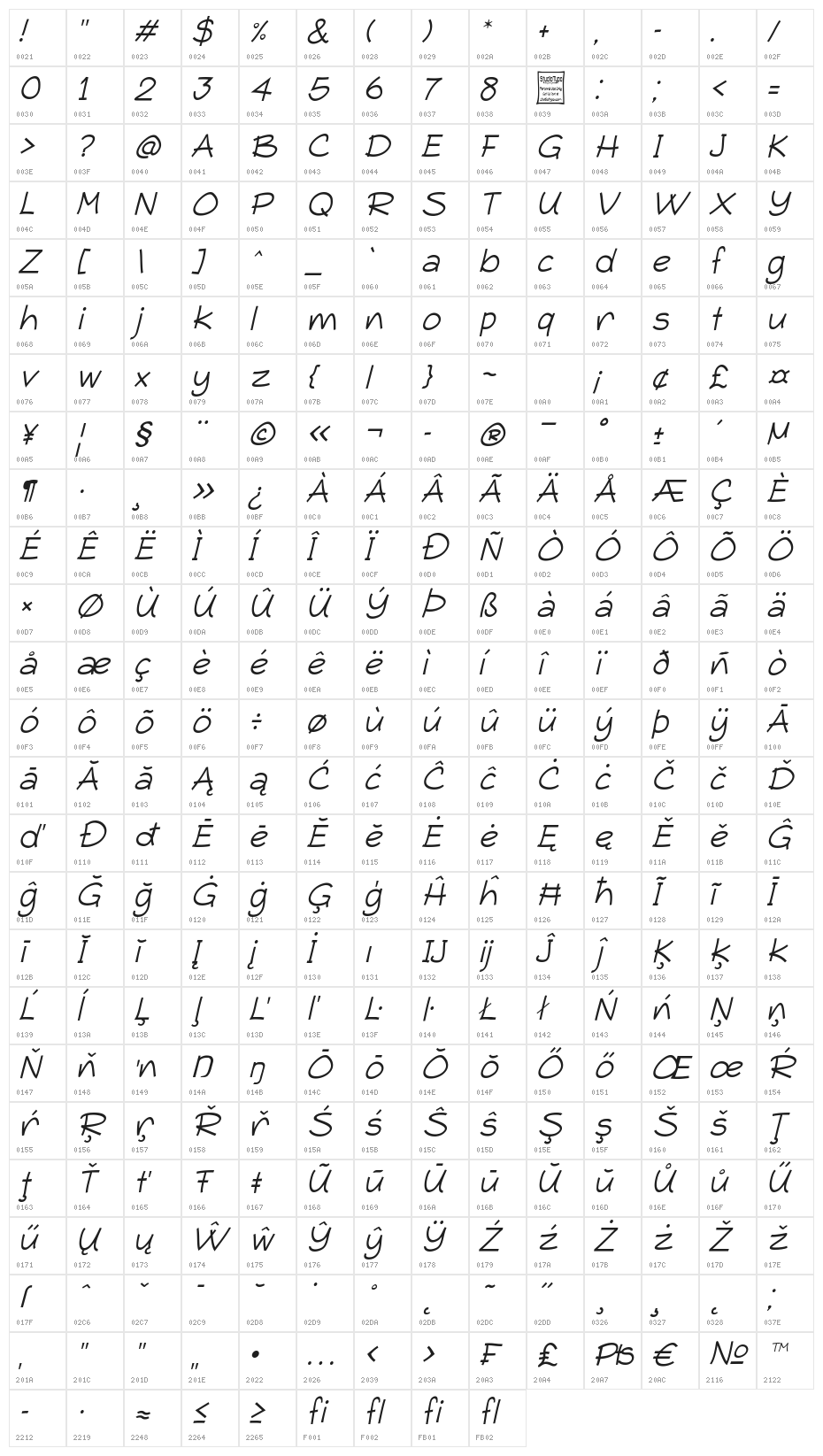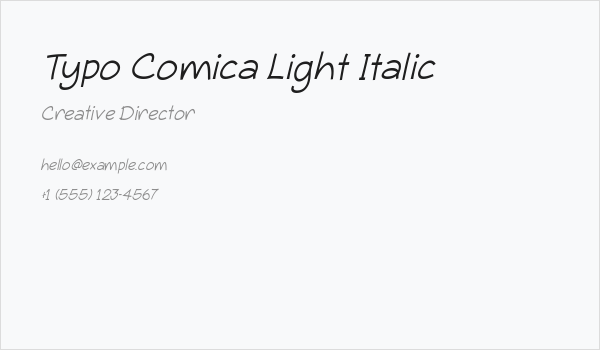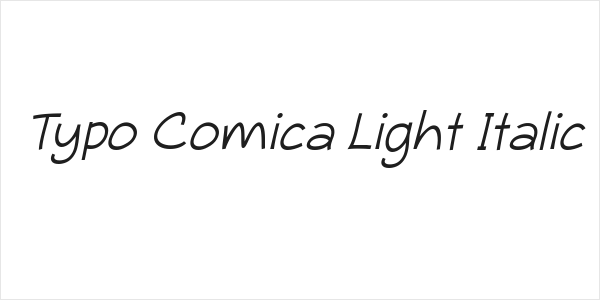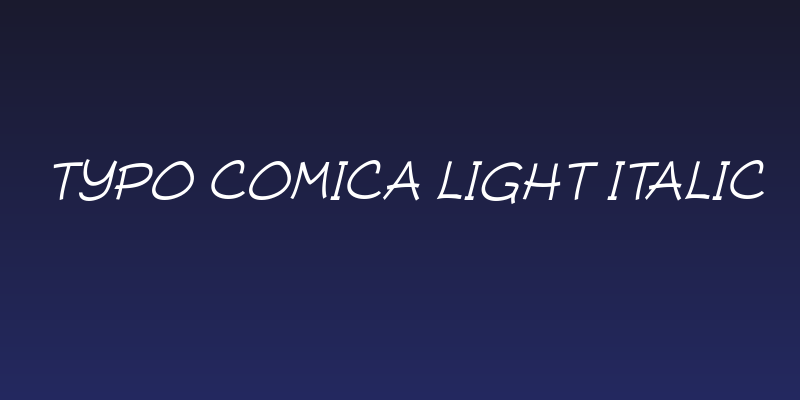
Typo Comica Light Italic Font
Typo Comica Light Italic Description
This font features a playful and casual style with a handwritten appearance. The letters are slightly slanted, giving it an italicized look. The strokes are smooth and consistent, with a light weight that adds to its informal charm. The characters have a rounded quality, and the overall design is approachable and friendly. It includes a full set of uppercase and lowercase letters, numbers, and a variety of special characters. The spacing between characters is balanced, making it easy to read while maintaining its whimsical aesthetic.
| Proposed Projects | Ideal for comic strips, children's books, casual invitations, and playful branding projects. |